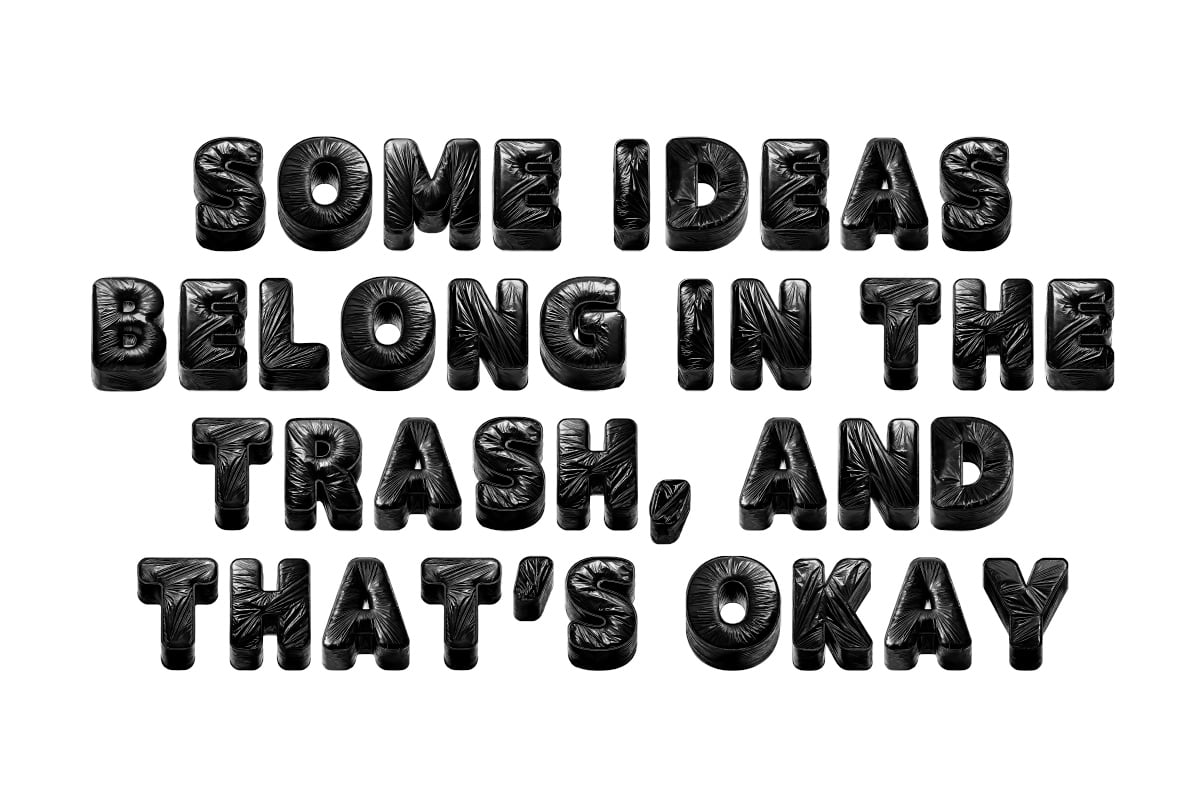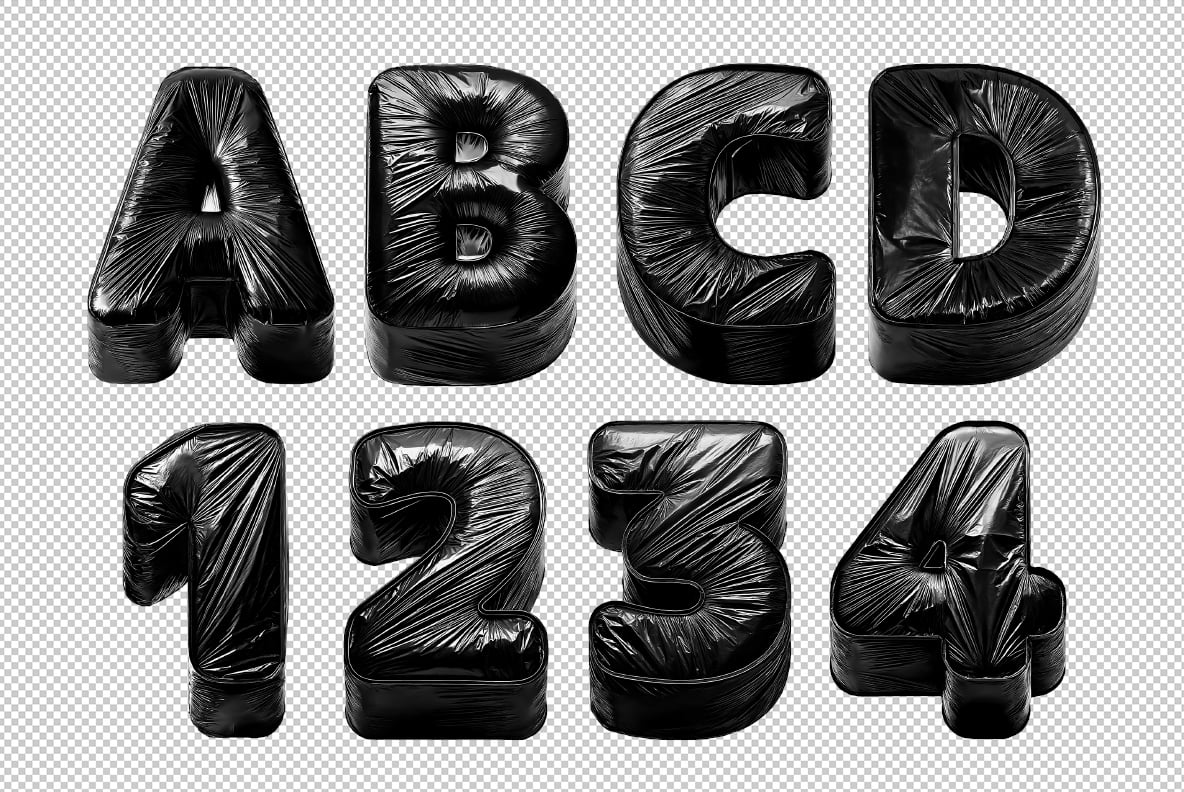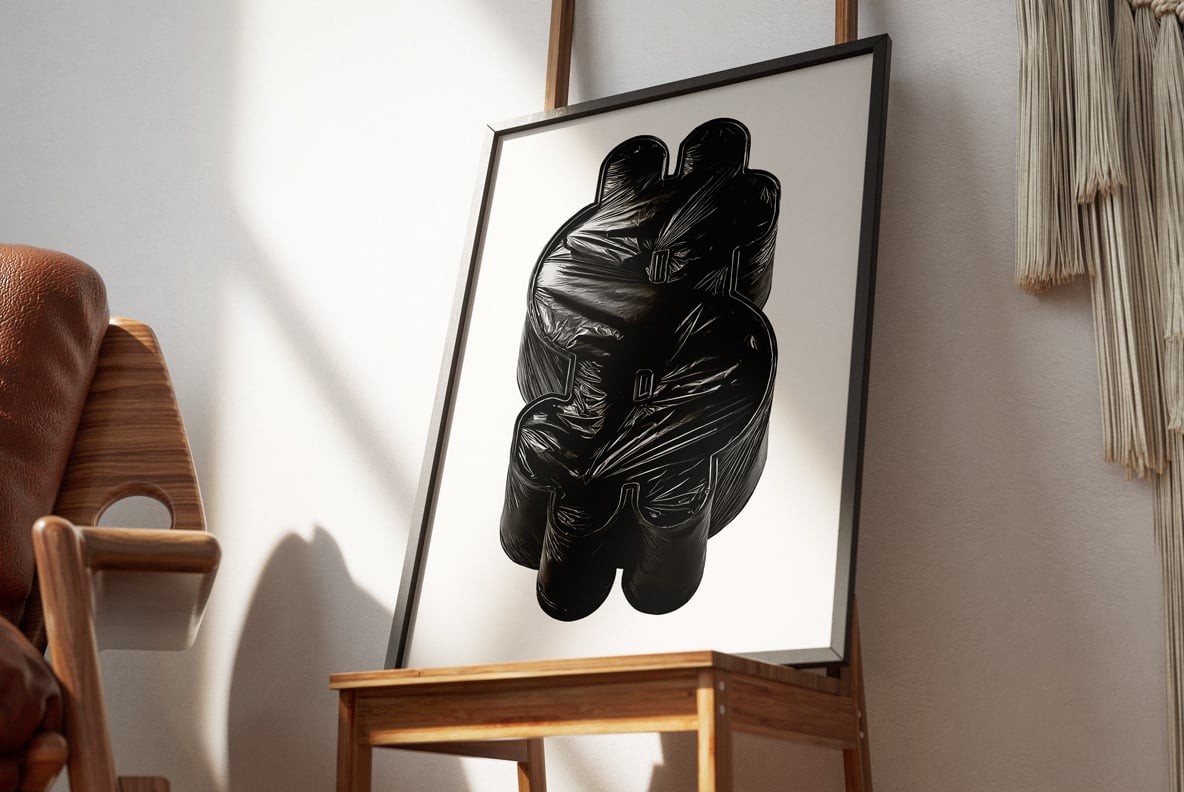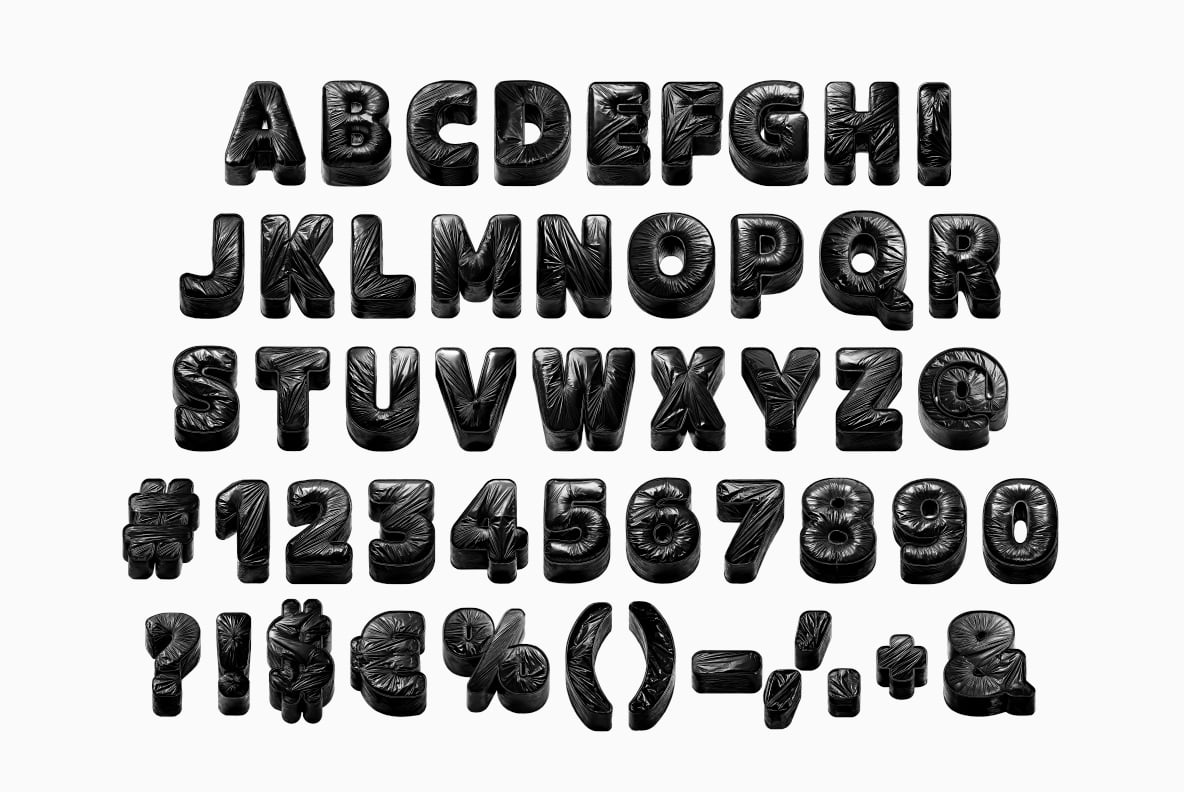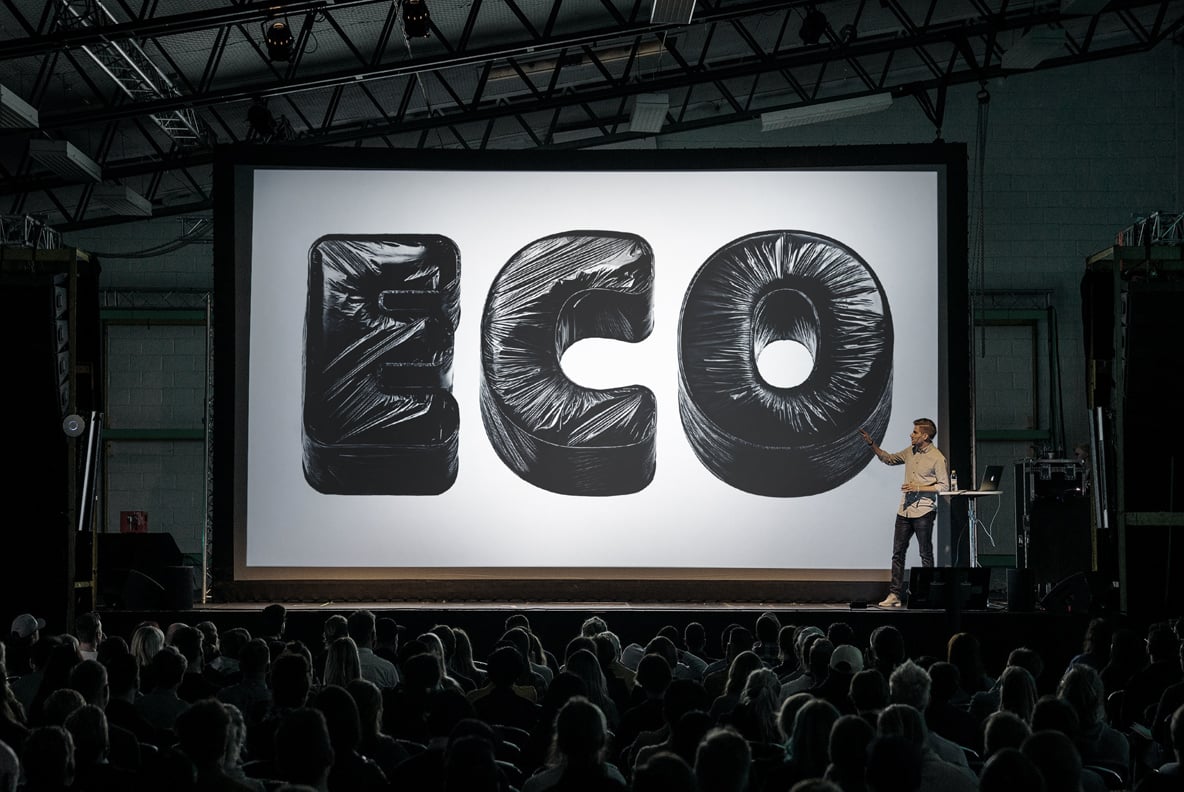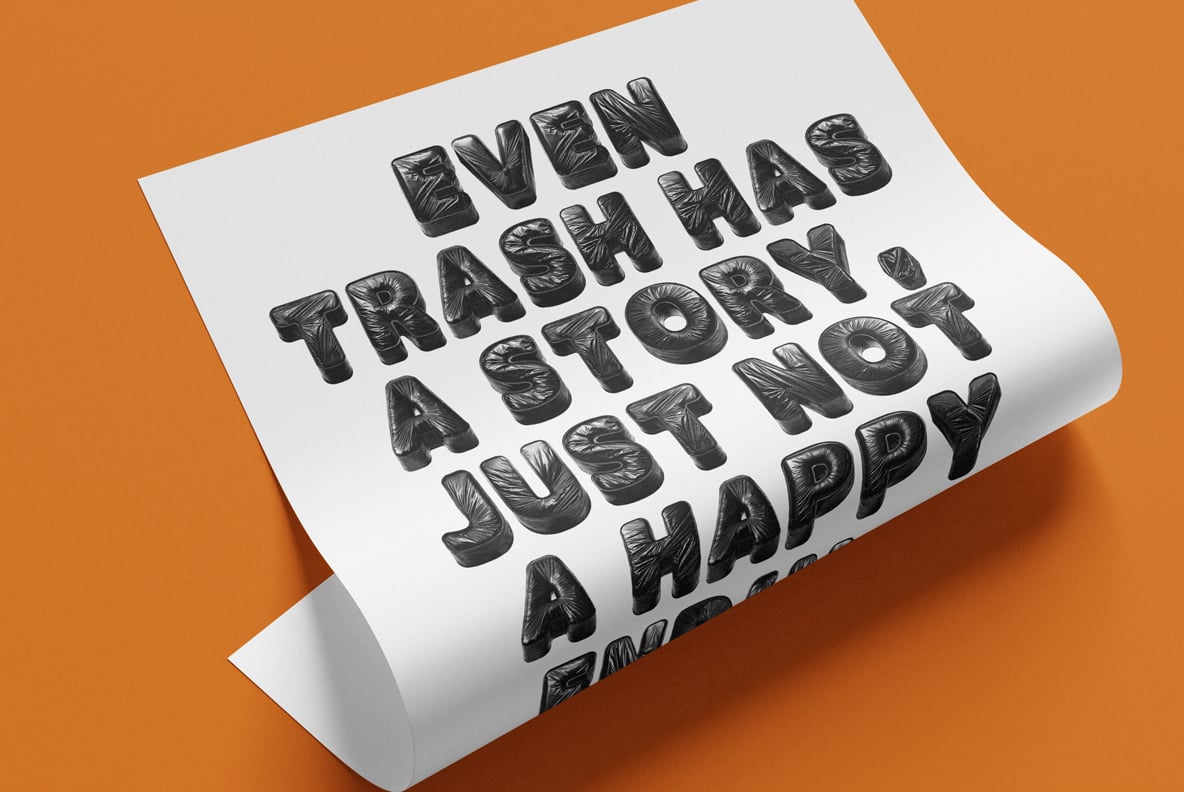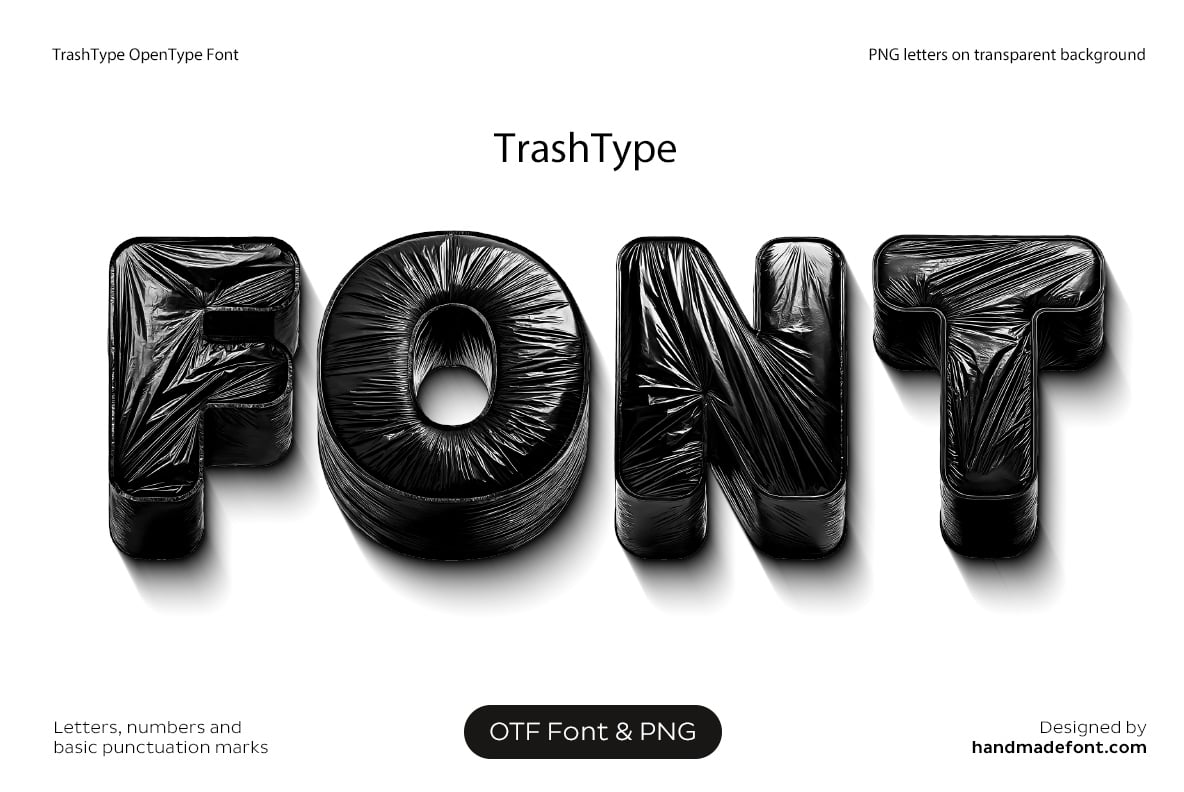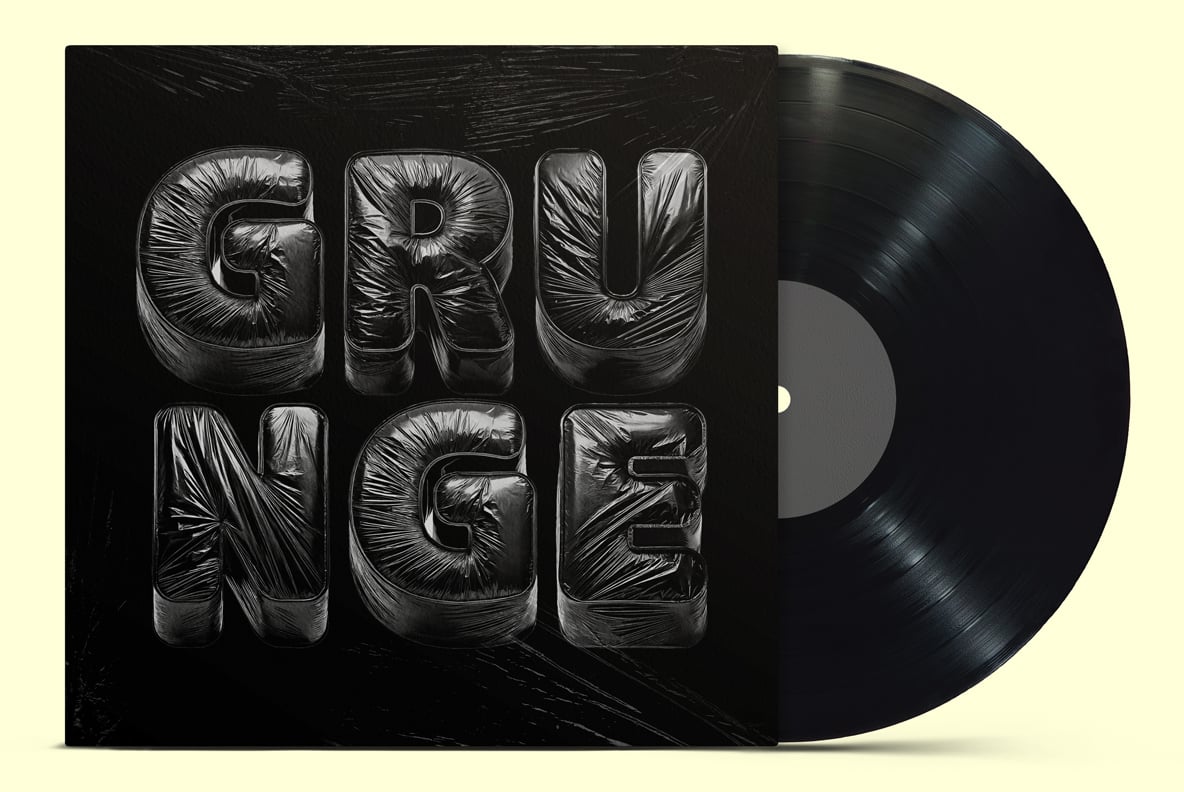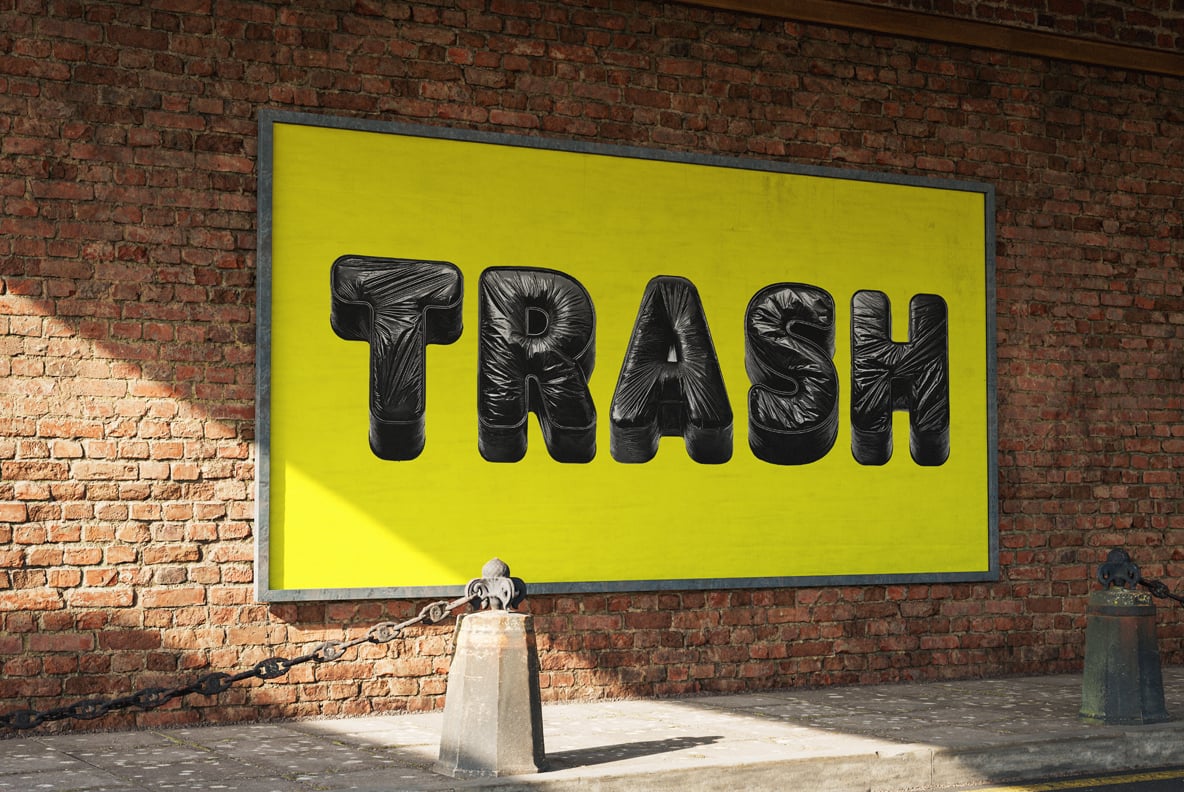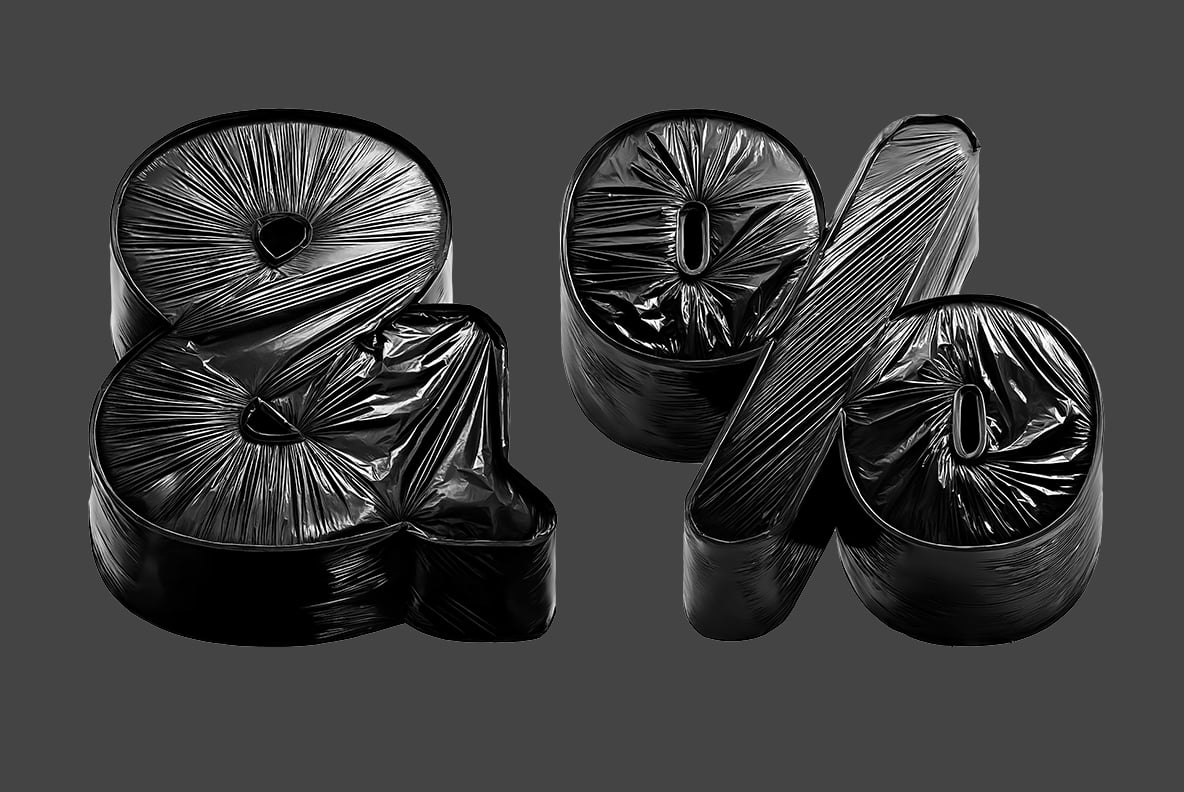
TrashType Font
Meet TrashType Font: the dumpster-diving diva of typography. Each letter looks like it’s been stuffed with bad decisions, old pizza, and pure design gold, all wrapped in shiny black trash bags. Soft yet chunky, wrinkled yet fabulous, it’s the kind of font that says, “I’m garbage, but make it fashion.” Hyper-realistic creases and glossy textures give it that fresh-from-the-curb appeal. It’s sculptural. It’s absurd. It’s weirdly beautiful. Perfect for punk zines, eco-posters, or any project that dares to get dirty. TrashType doesn’t whisper elegance—it yells, “This is trash, baby, and it belongs in a museum!”